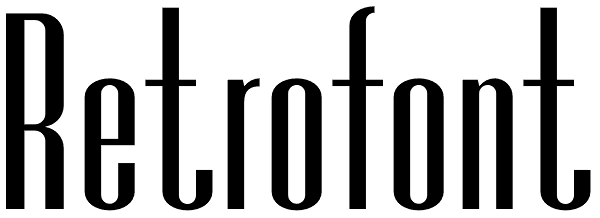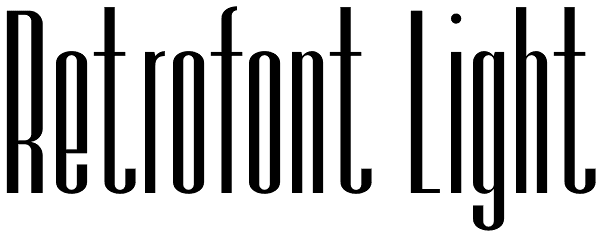
Retrofont
Retrofont is derived from a research work on A. Butti's Hastile typeface; this typeface was never digitized. We looked for a typeface like this, to be used in a work of us, but we did not find anything. We decided to design Retrofont basing it upon...
Retrofont
Retrofont Light